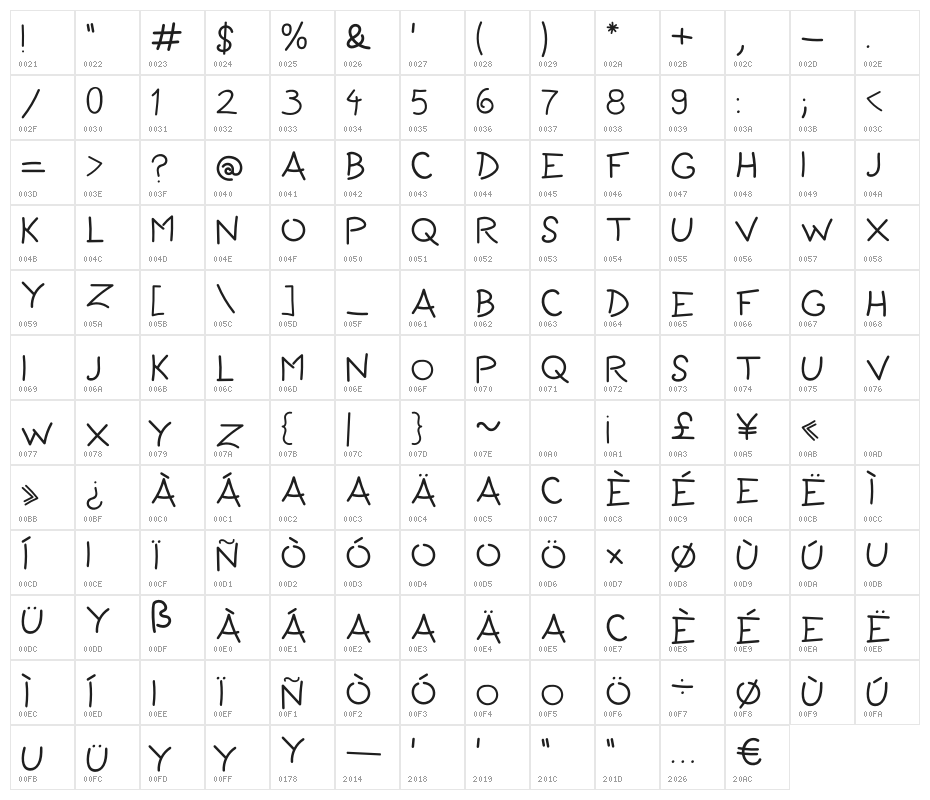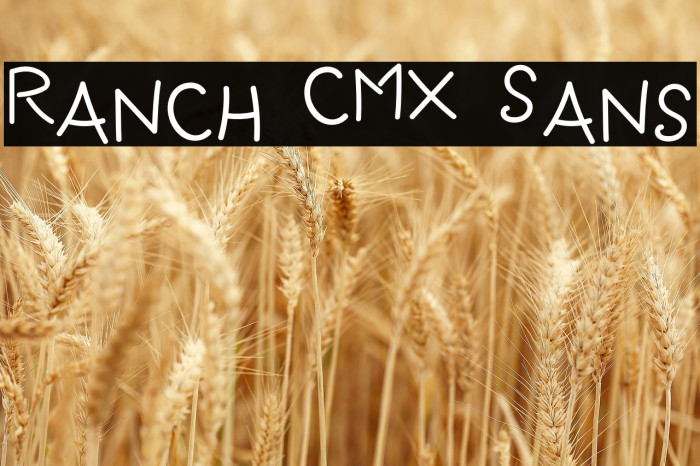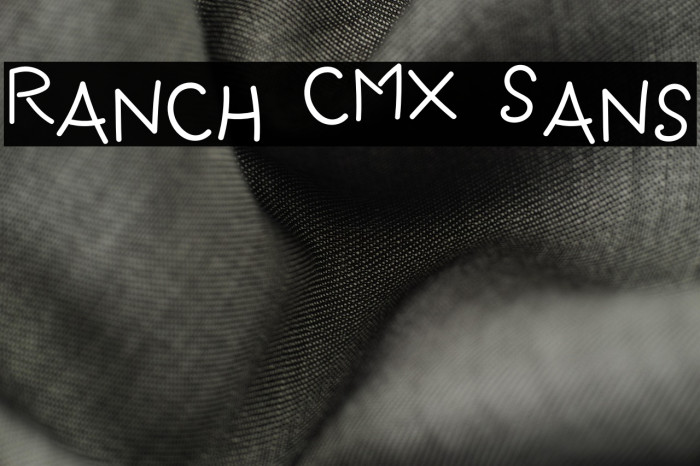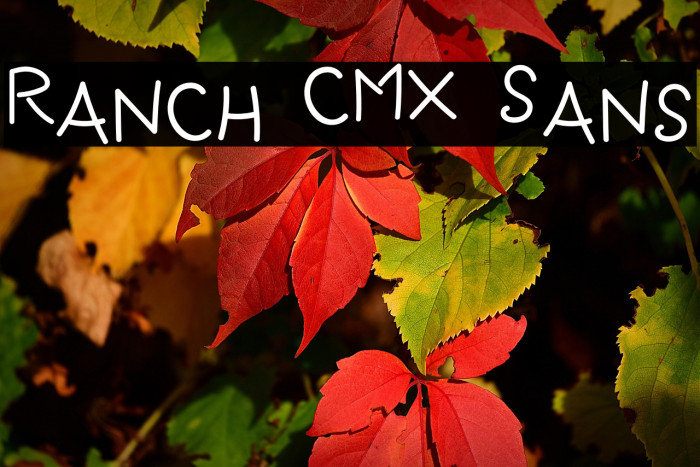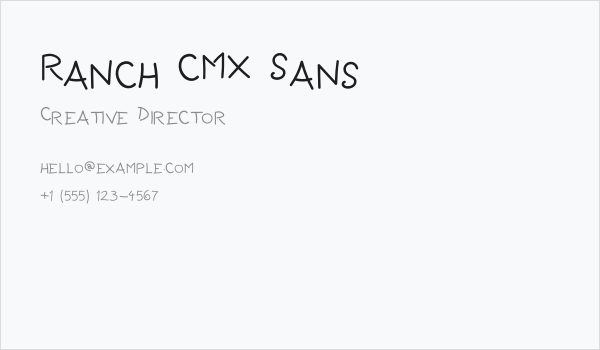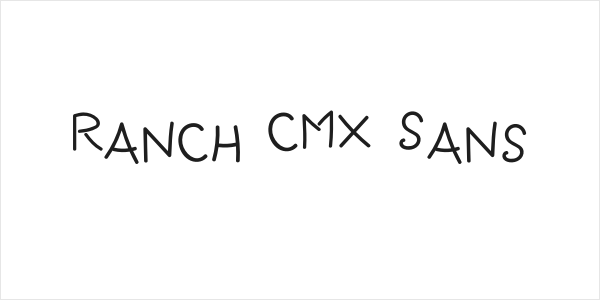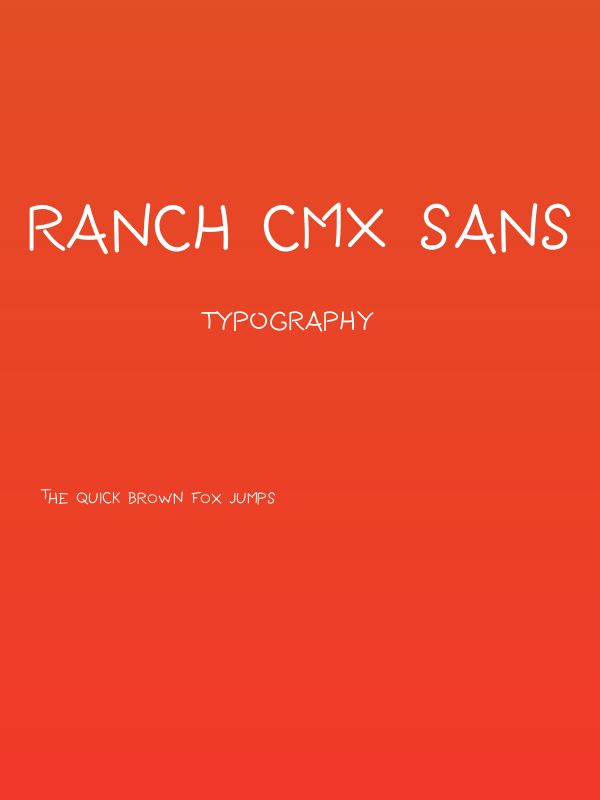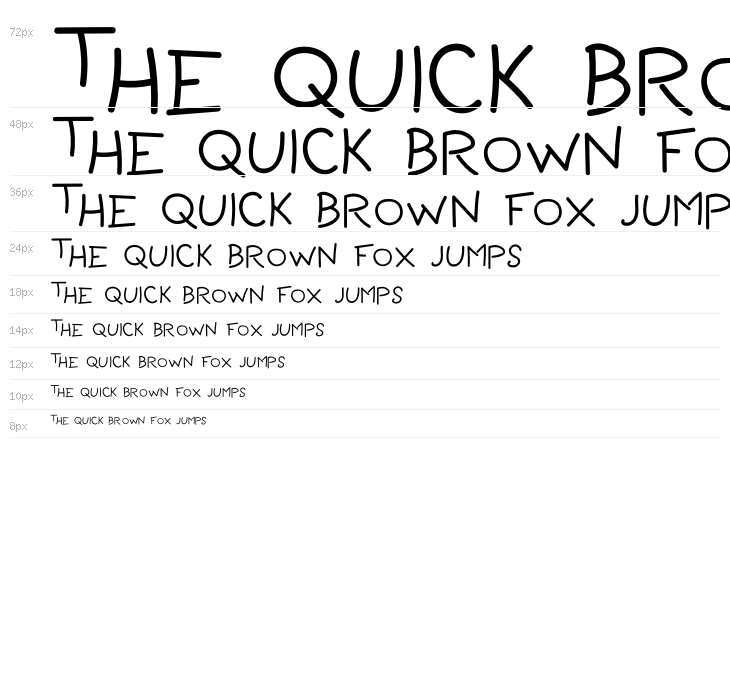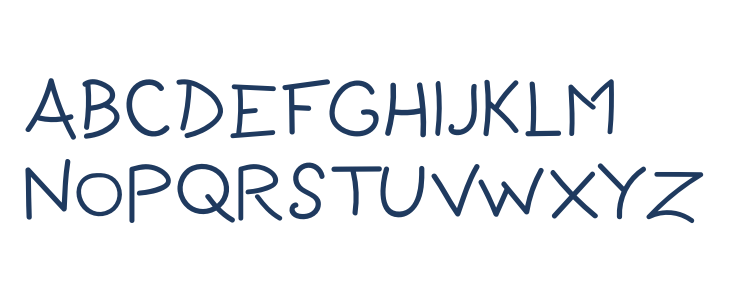
Ranch CMX Sans Font
Ranch CMX Sans Description
This font features a playful and informal style, characterized by its hand-drawn appearance. The letters have a casual, slightly irregular form that adds a personal touch to any design. The strokes are consistent in width, giving it a uniform look while maintaining a friendly and approachable feel. The characters are well-spaced, ensuring readability even at smaller sizes. This font includes a full set of uppercase and lowercase letters, numerals, and a variety of special characters, making it versatile for different design needs.
| Use Case | Headlines, Informal text, Branding |
| Proposed Projects | Ideal for children's books, greeting cards, casual branding, and playful posters. |